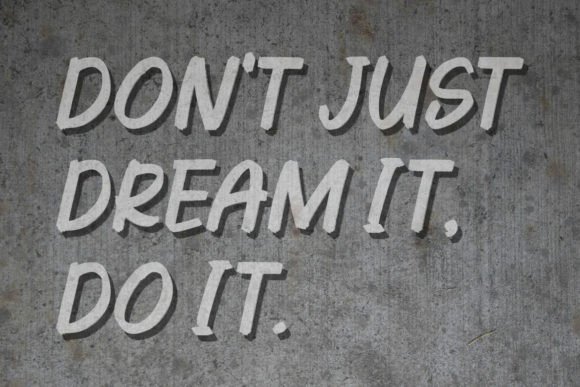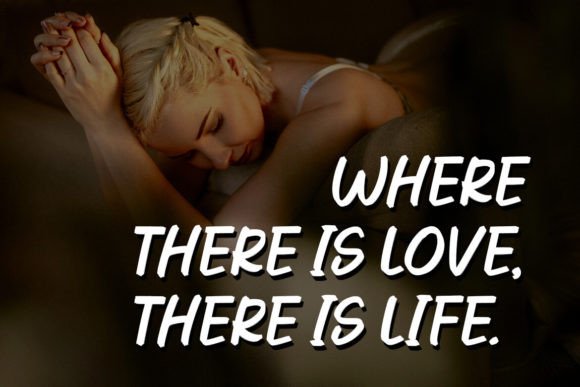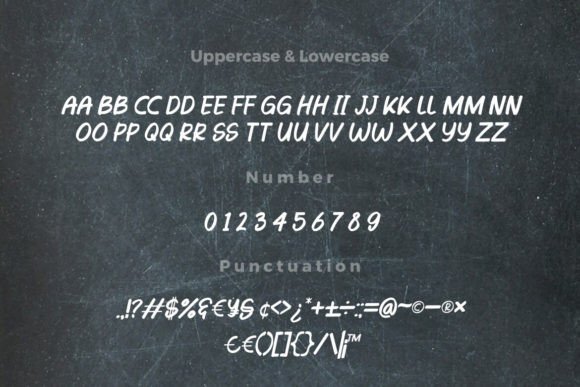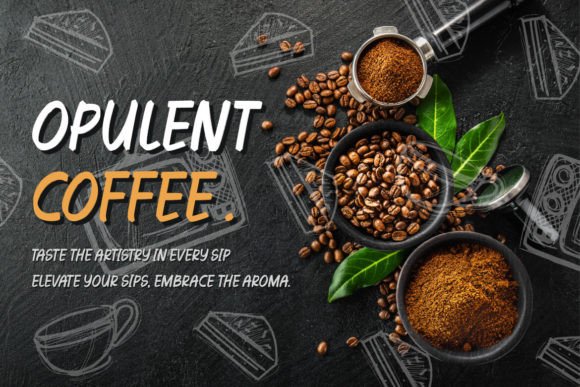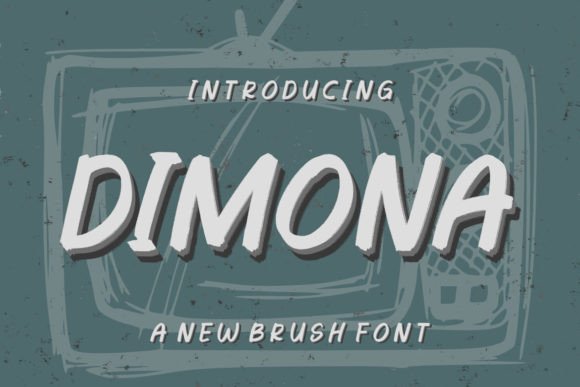
Introducing Dimona Brush Font: Elevate Your Designs with Premium Quality Typography
Are you a designer or crafter looking for a unique and high-quality font to elevate your creative projects? Look no further than Dimona Brush Font, a stunning brush typography-inspired font that is sure to take your designs to the next level. With its premium quality and versatility, Dimona Brush Font is perfect for a wide range of applications, from flyers and quotes to posters, banners, packaging, merchandise, logotypes, and more.
The Inspiration Behind Dimona Brush Font
Dimona Brush Font draws inspiration from the world of brush typography, where the imperfections and uniqueness of hand-brushed letters are celebrated. The font’s creator has carefully crafted each letterform to mimic the natural, fluid strokes of a brush, giving Dimona Brush Font a distinctive and artistic feel. This font is perfect for designers and crafters who want to add a touch of personality and whimsy to their designs.
Key Features of Dimona Brush Font
- High Premium Quality: Dimona Brush Font is crafted with attention to detail and a focus on quality, ensuring that it meets the highest standards of typography.
- Versatile: This font is suitable for a wide range of applications, from digital designs to print materials.
- Unique and Artistic: Dimona Brush Font’s brush-inspired letterforms add a touch of personality and whimsy to any design.
- Easily Customizable: The font’s flexibility allows you to adjust the size, color, and style to fit your design needs.
Use Cases for Dimona Brush Font
Dimona Brush Font is an incredibly versatile font that can be used in a variety of creative projects. Here are some ideas to get you started:
- Flyers and Brochures: Add a touch of elegance and sophistication to your marketing materials with Dimona Brush Font.
- Quotes and Posters: Use Dimona Brush Font to create inspiring and eye-catching quotes and posters that showcase your message.
- Banners and Signage: Make a statement with Dimona Brush Font on banners, signs, and other display materials.
- Packaging and Merchandise: Add a personal touch to your product packaging and merchandise with this unique font.
- Logotypes and Branding: Use Dimona Brush Font to create a distinctive and memorable brand identity.
Tips for Using Dimona Brush Font
To get the most out of Dimona Brush Font, here are some tips to keep in mind:
- Experiment with Colors: Dimona Brush Font looks great in a variety of colors, so don’t be afraid to experiment and find the perfect hue for your design.
- Play with Size and Style: Adjust the size and style of Dimona Brush Font to create visual interest and hierarchy in your design.
- Combine with Other Fonts: Pair Dimona Brush Font with other fonts to create a unique and visually appealing typography combination.
Dimona Brush Font is a premium quality font that is sure to elevate your designs and take your creativity to the next level. With its unique brush-inspired letterforms, versatility, and high-quality craftsmanship, this font is perfect for designers and crafters looking to add a touch of personality and whimsy to their projects. So why wait? Download Dimona Brush Font today and start creating stunning designs that showcase your creativity and style.